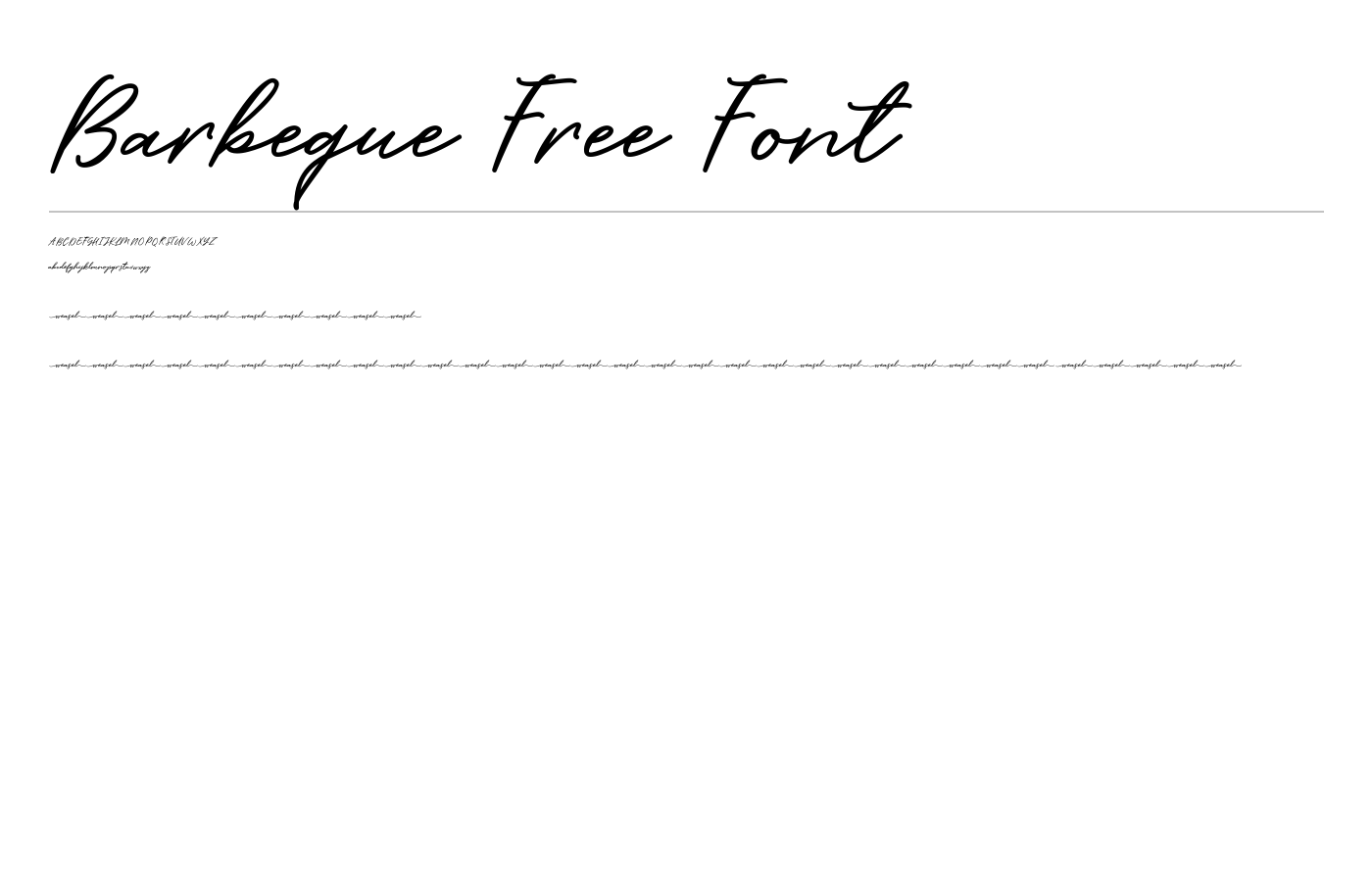
Barbeque Free Font is a delicate, handwritten script with a casual and elegant feel, featuring slender, fluid strokes that bring a personal touch to any design. Its narrow width and consistent fine line weight make it perfect for stylish invitations, branding, and editorial projects where a graceful, intimate tone is desired. This font shines in creative uses that benefit from a refined yet approachable handwritten style.
Barbeque Free Font
About Barbeque Free Font
| Font family | Barbeque Free Font |
| Designer | Weasel Foundry |